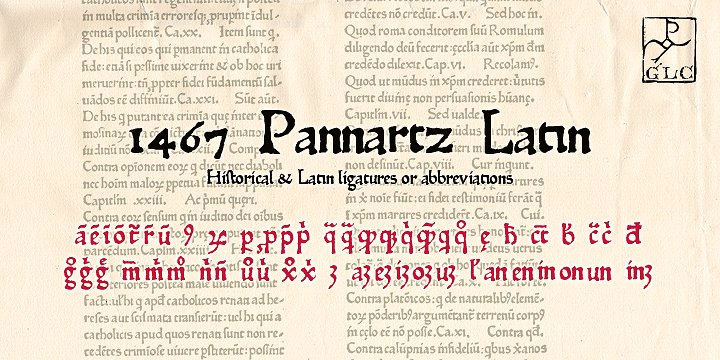
1467 Pannartz Latin
This family was inspired by the edition De Civitate Dei (by Sanctus Augustinus) printed in 1467 in Sobiano (Italy, Roma) by Konrad Sweynheym and Arnold Pannartz who was the Punchcutter. It is one of the first few “Roman style” fonts, just before the birth of Jenson’s pattern (look at 1470 Jenson Latin).
The present font contains all of the specific latin abbreviations and ligatures used in the original (about 54). Added are the accented characters and a few others not in use in this early period of printing. More…
Decorated letters such as 1512 Initials, 1550 Arabesques, 1565 Venetian, or 1584 Rinceau can be used with this family without anachronism. If Italic style is required,(no longer existing in early time of printing) we recommend using 1557 Italique.